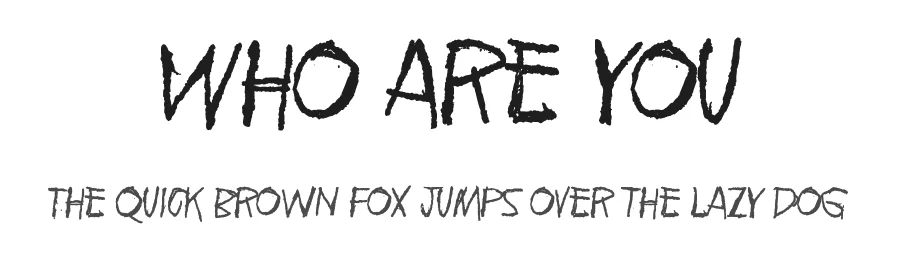
About Natural Writing Font
Natural Writing is a script & handwritten font designed by Fabien Graphiste. It includes 236 glyphs, a regular weight, TTF (TrueType) format, and 209 languages. Natural Writing is free to download; check the license details on this page before commercial use. Script & handwritten fonts like Natural Writing work best for wedding invitations, greeting cards, signatures, and elegant branding.
| Designer | Fabien Aubert |
Natural Writing Font is a script font that shines as a display or heading face. Pair it with a clean sans-serif or serif font for body text β the contrast creates a clear hierarchy while the two styles stay balanced and easy to read.
Natural Writing Font
Natural Writing Font is a script handwritten typeface by Fabien Graphiste, ideal for logos, invitations, branding, and creative projects.